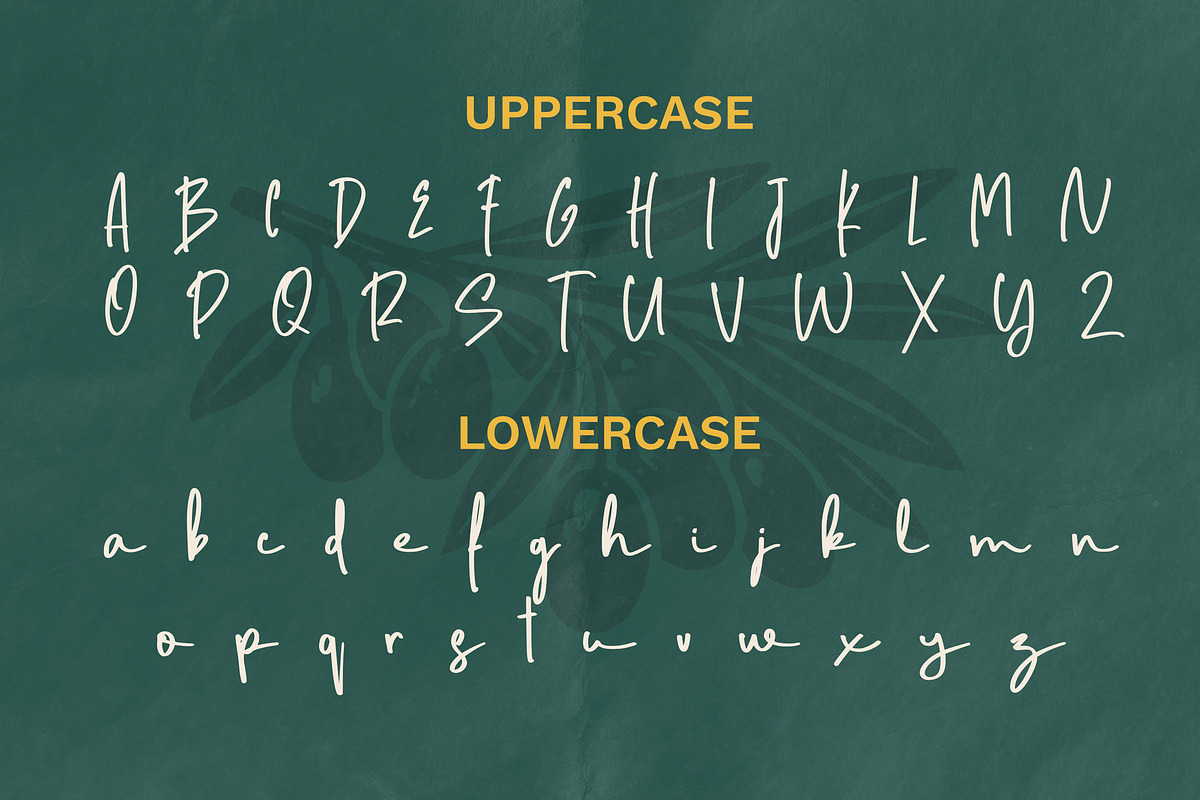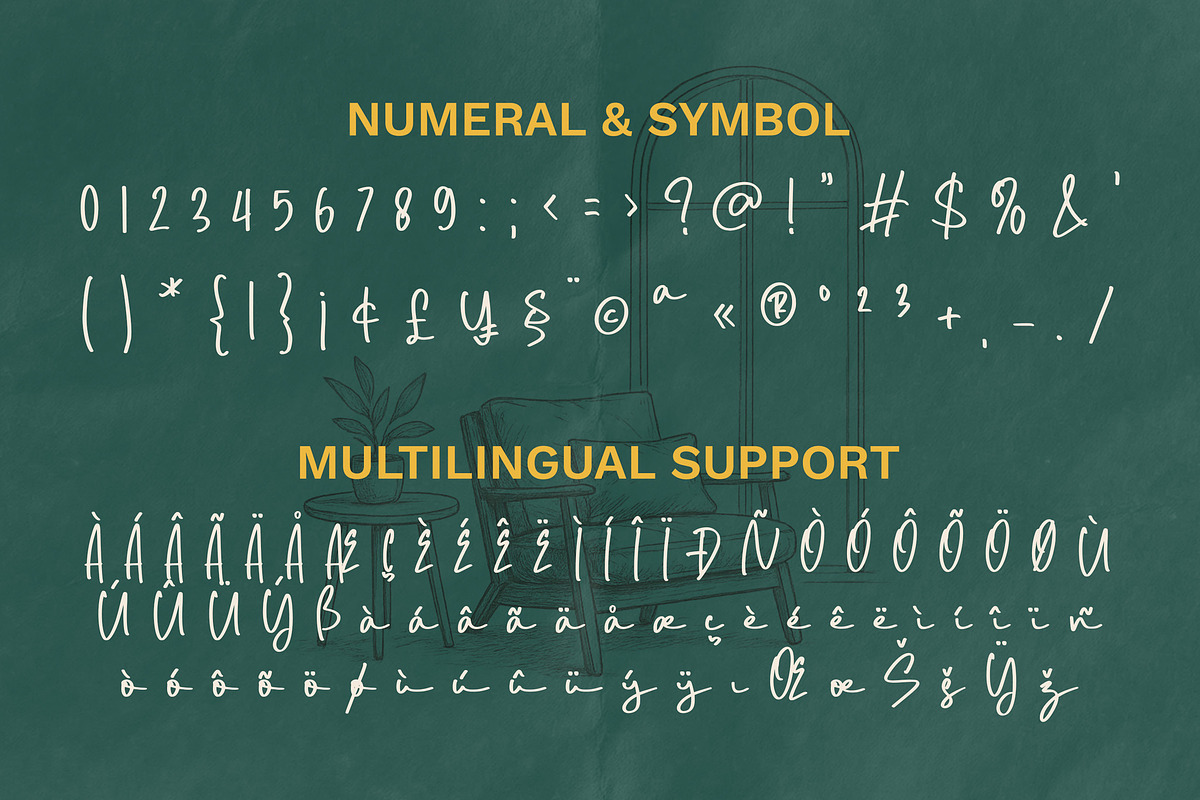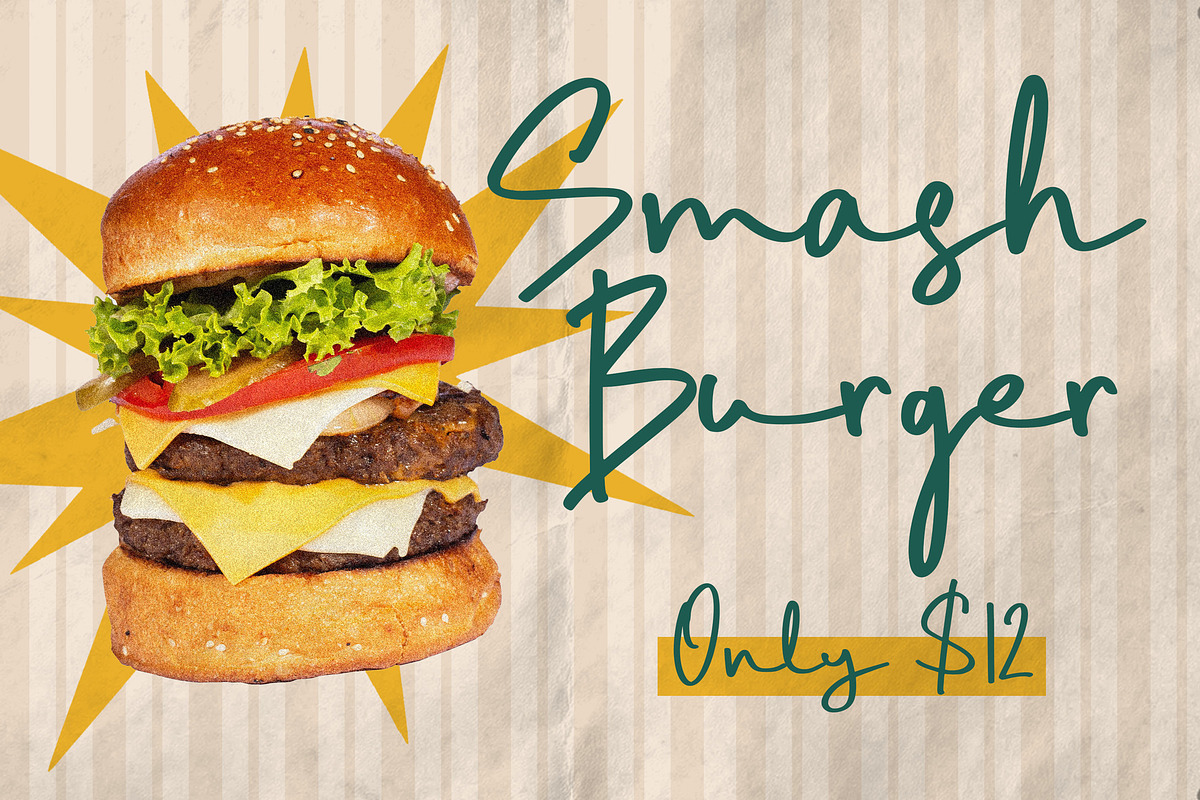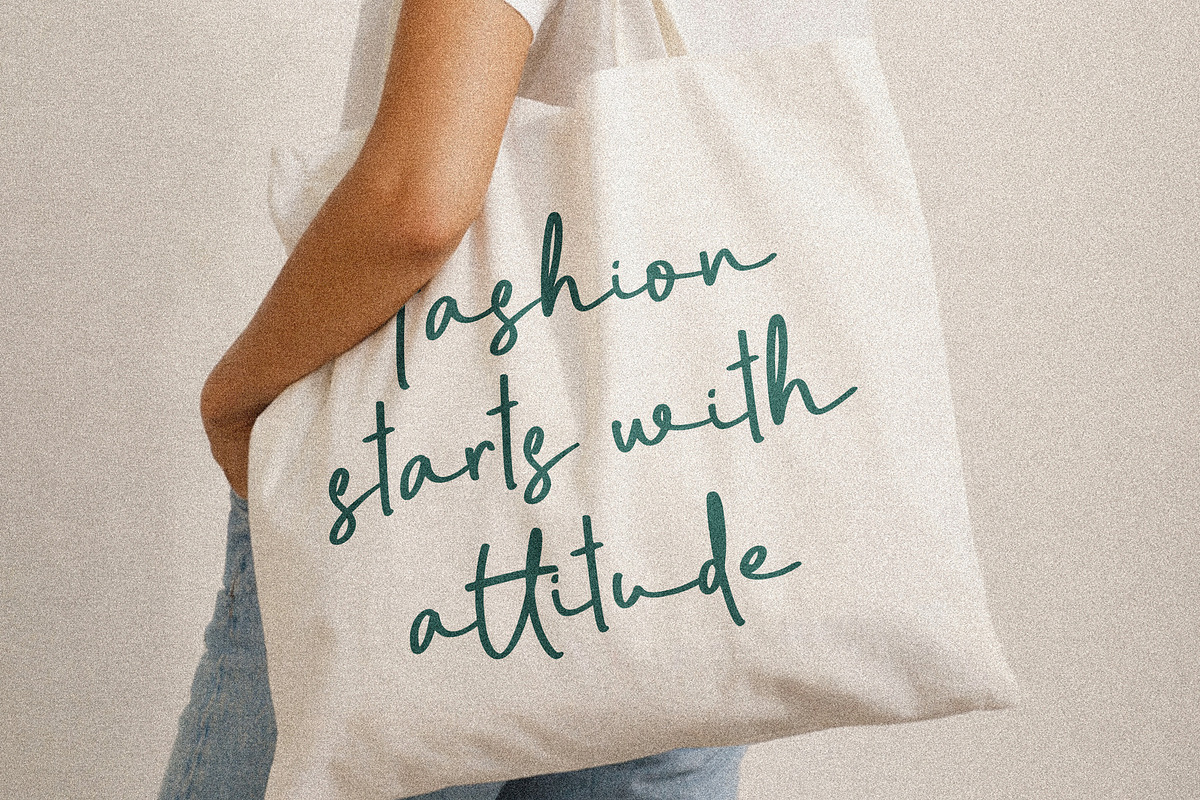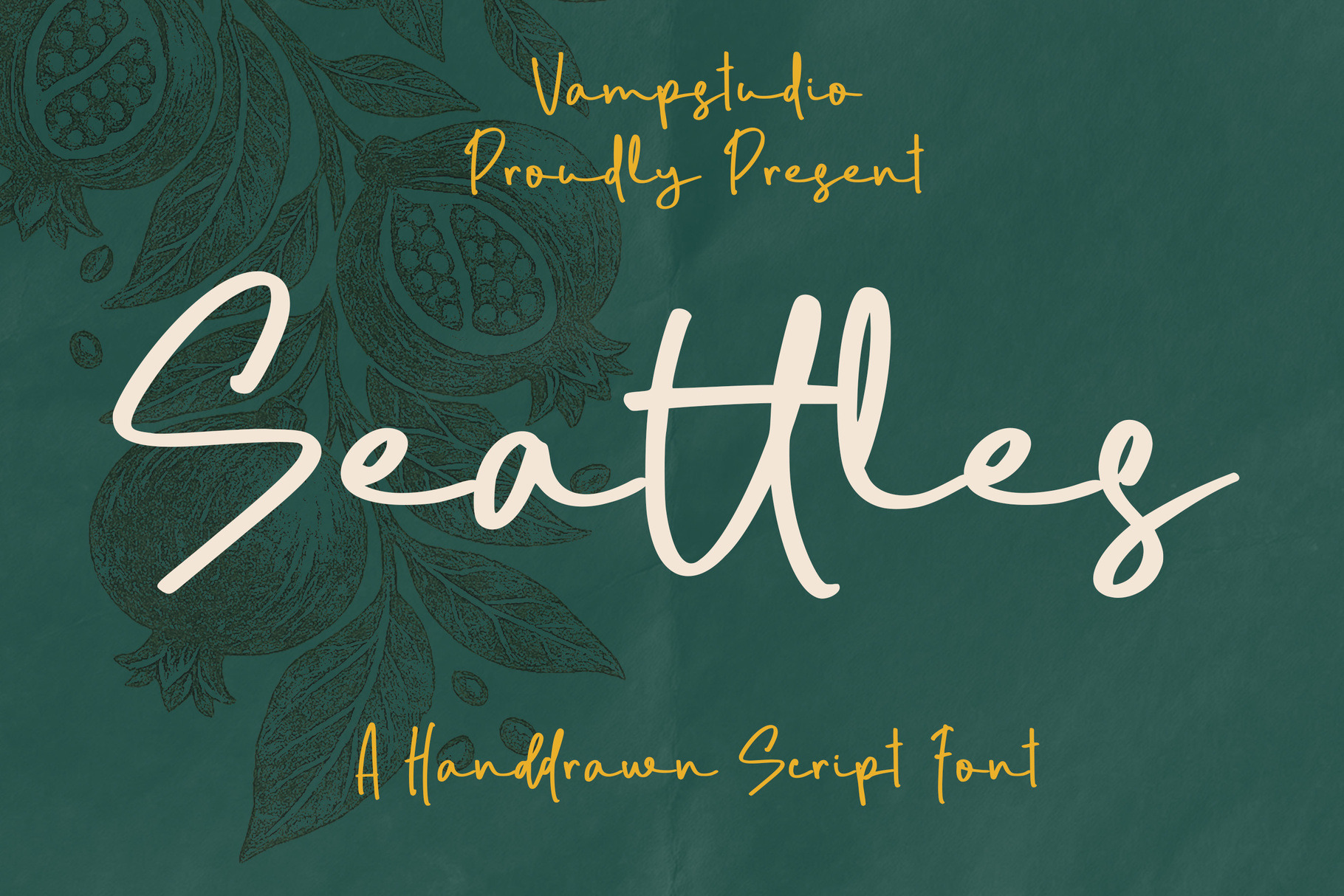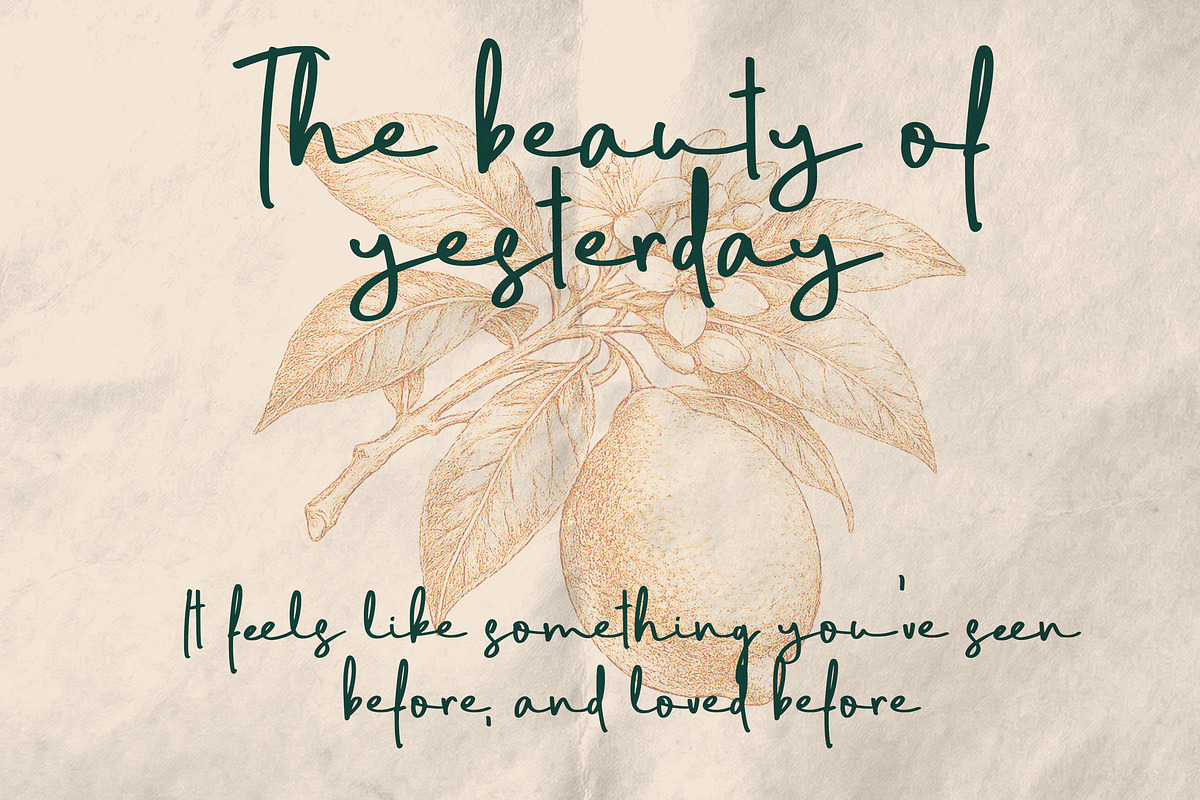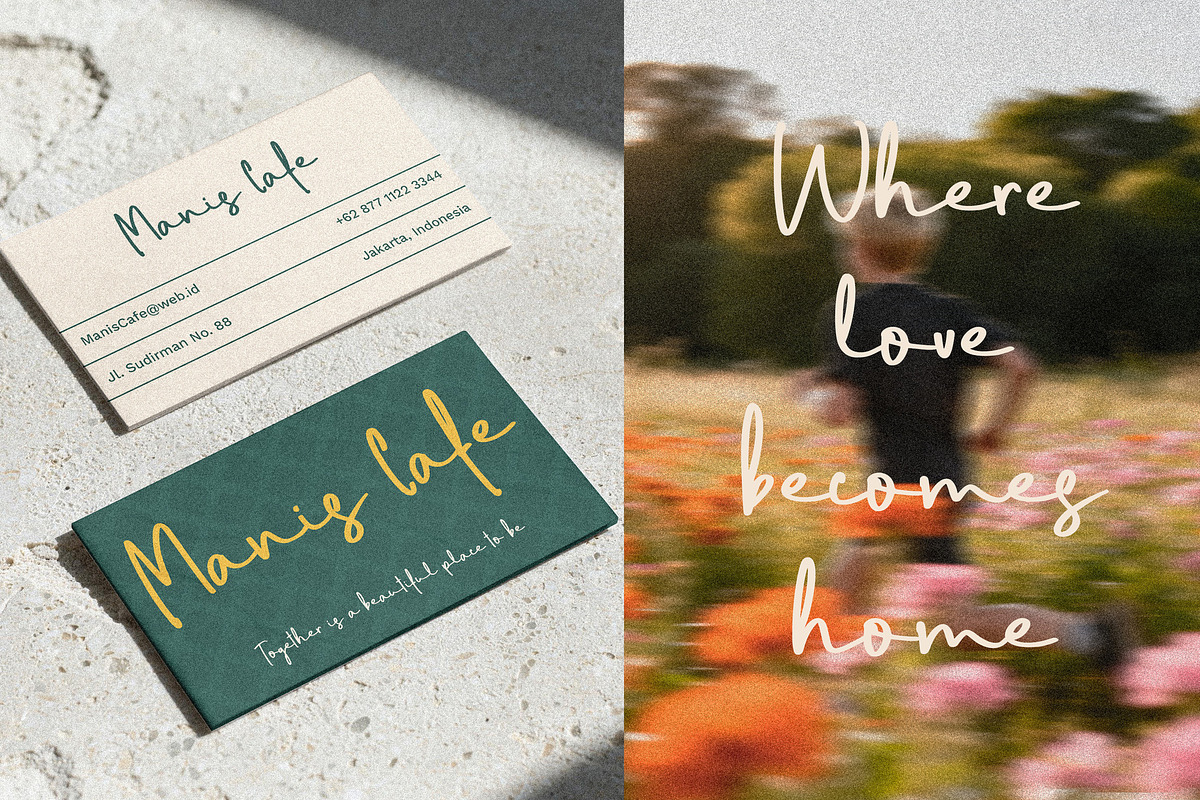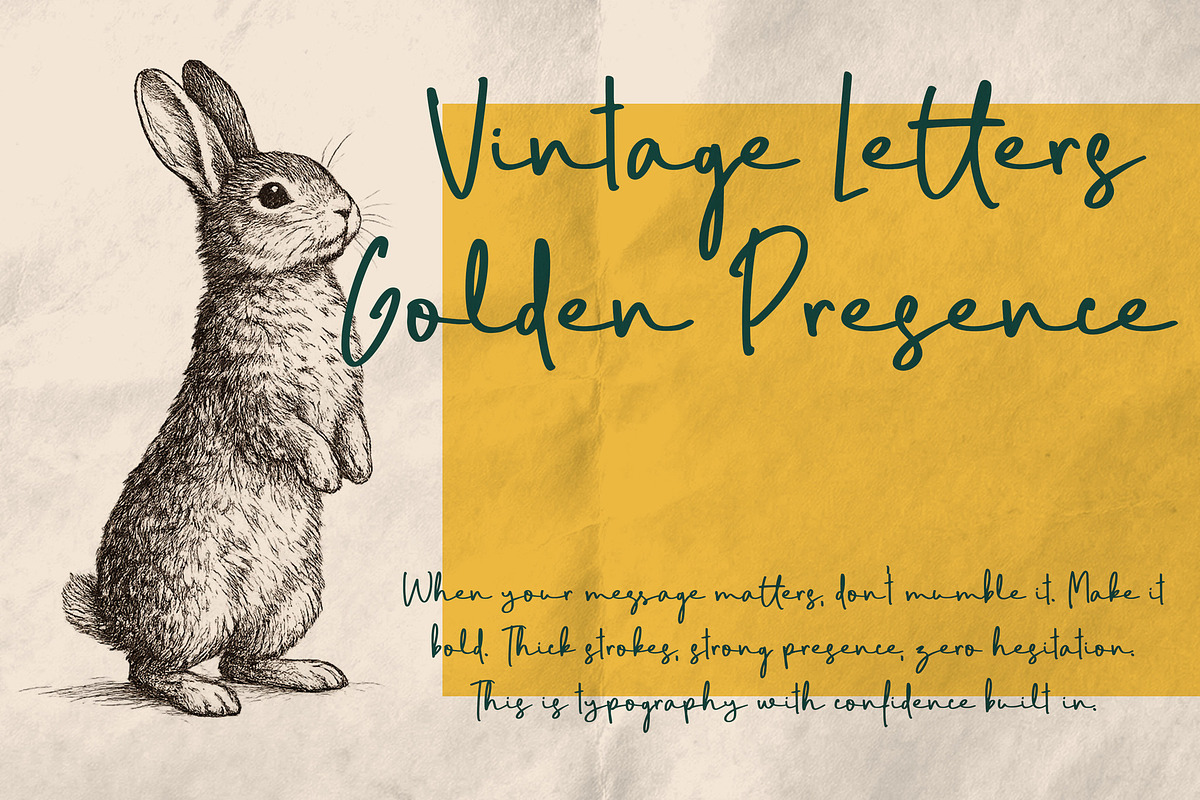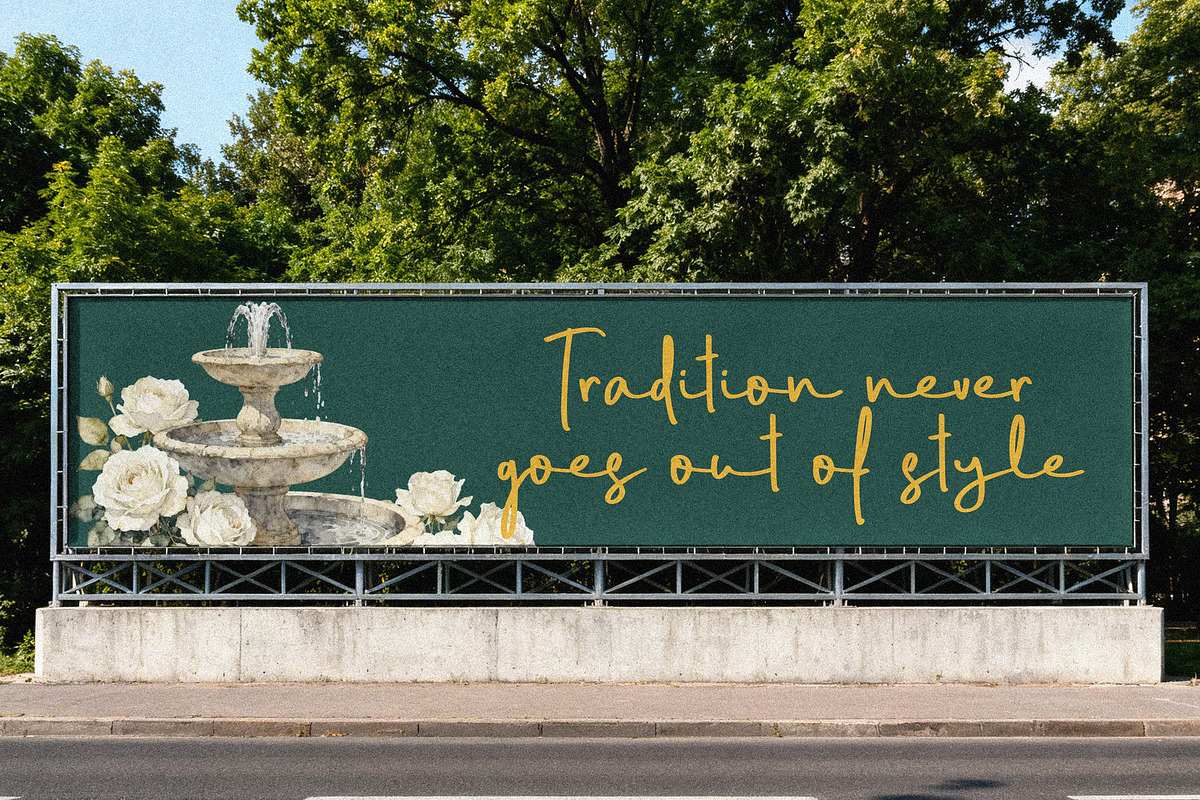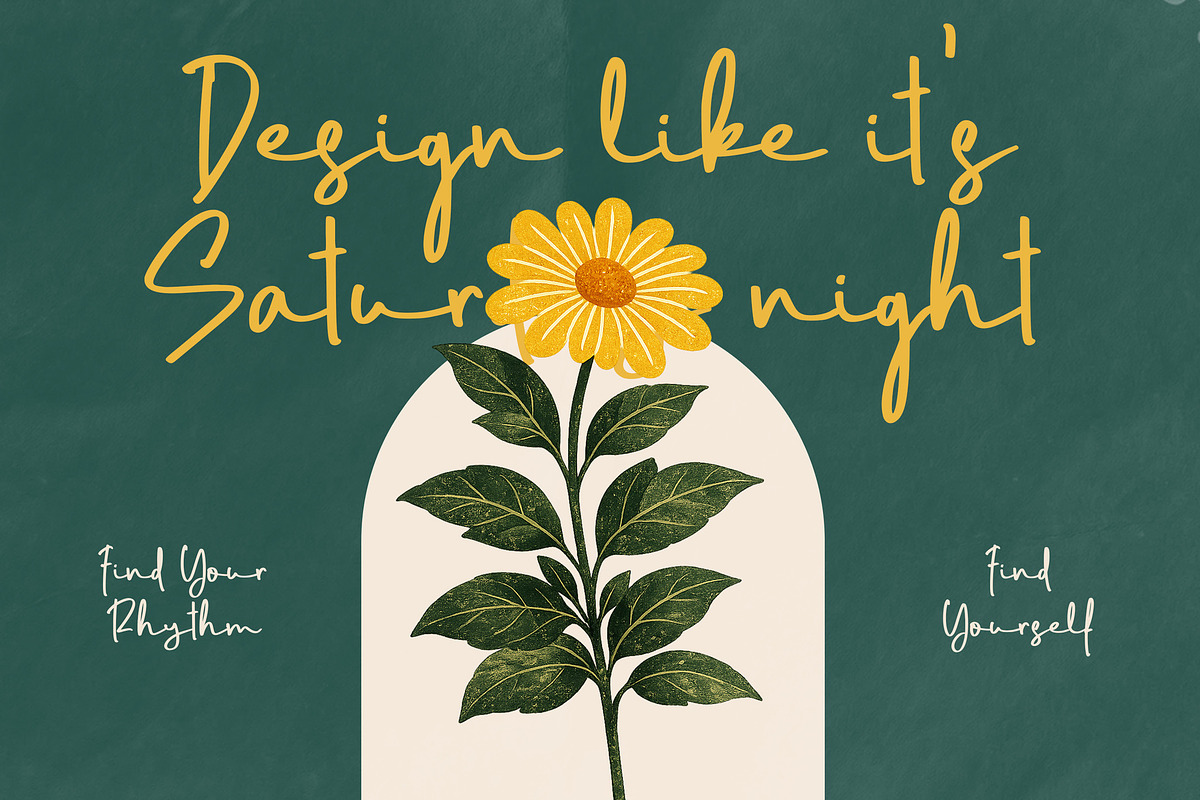
Seattles - Handwritten Script Font
Seattles is a stylish handwritten script font designed with authentic pen strokes and a clean organic flow. This font delivers a natural handcrafted feel that works beautifully across branding, invitations, social media graphics, packaging, fashion editorials, and creative business projects.
Its lightweight handwritten character creates a warm and personal touch while remaining elegant and highly readable. Seattles is ideal for designers looking for a modern handwritten aesthetic with artistic charm.
Perfect for logos, beauty branding, cafés, product packaging, wedding invitations, Instagram posts, feminine branding, lifestyle content, stationery, and creative advertising.
Uppercase & Lowercase Characters
Natural Handwritten Style
Smooth and Elegant Letterforms
Clean Readability
Perfect for Branding & Packaging
Works for Print and Digital Design